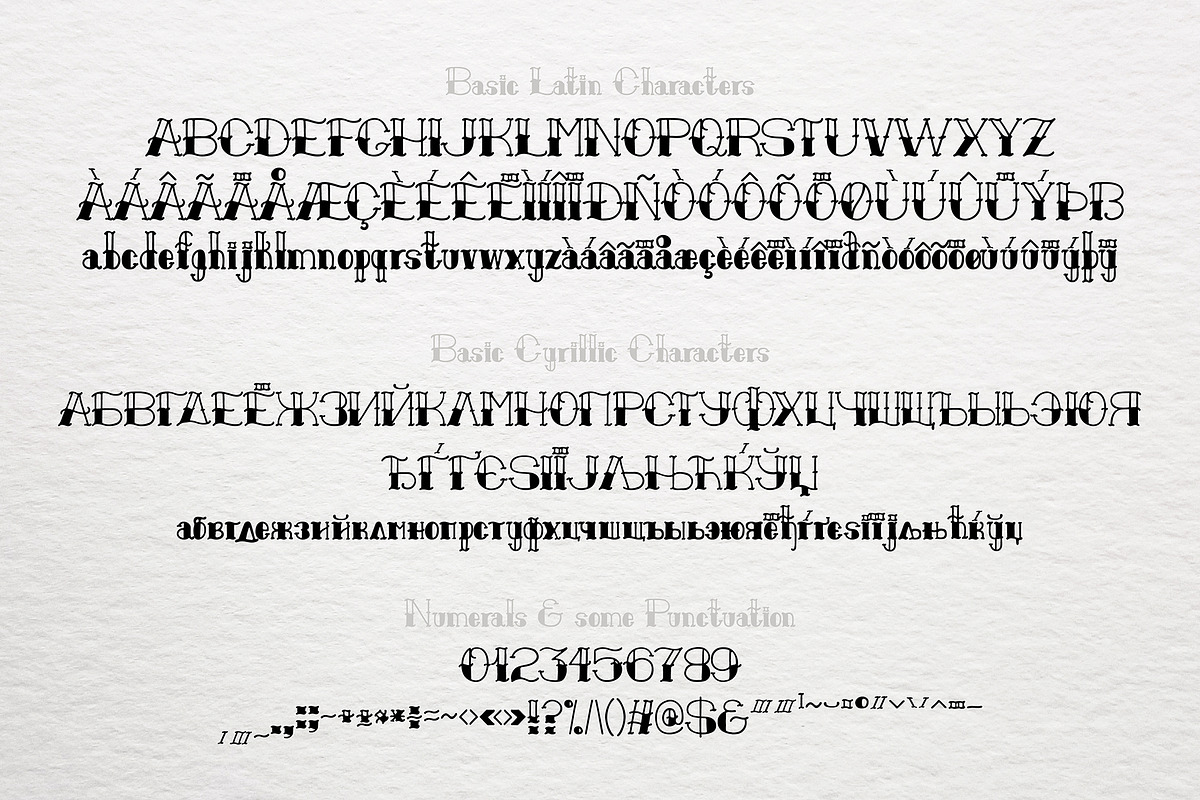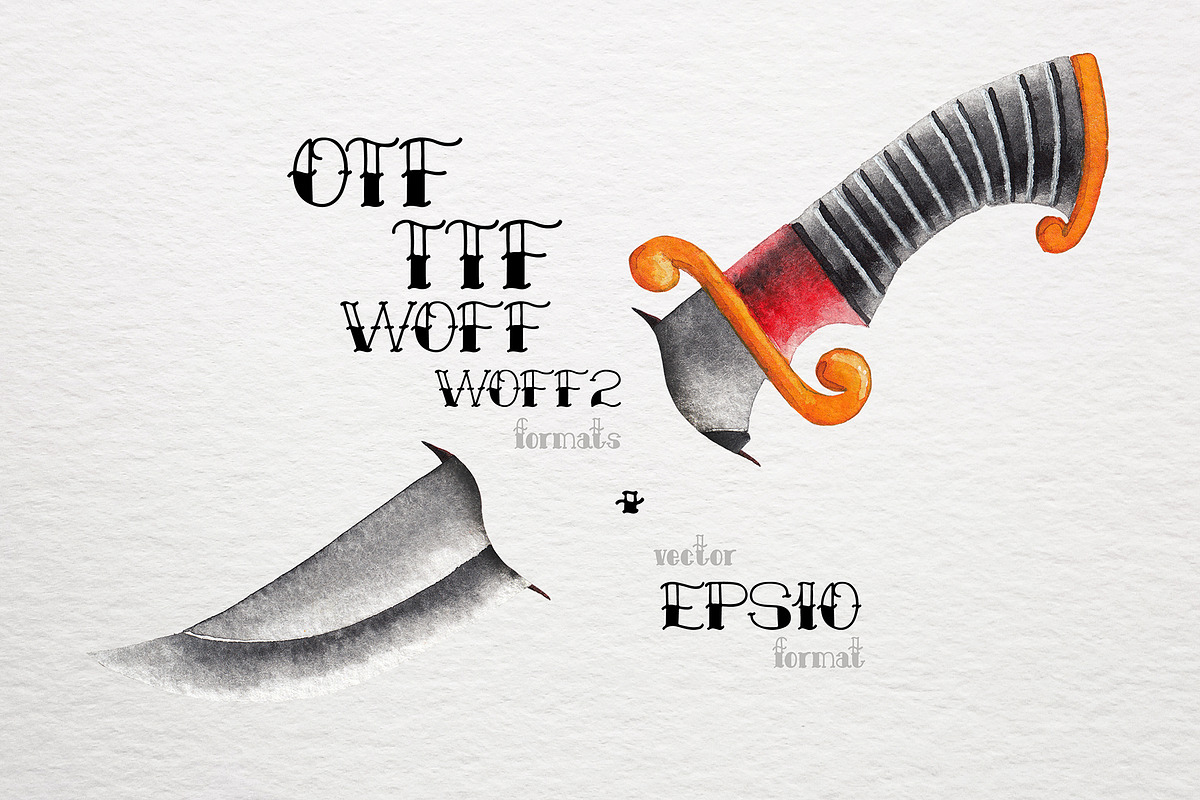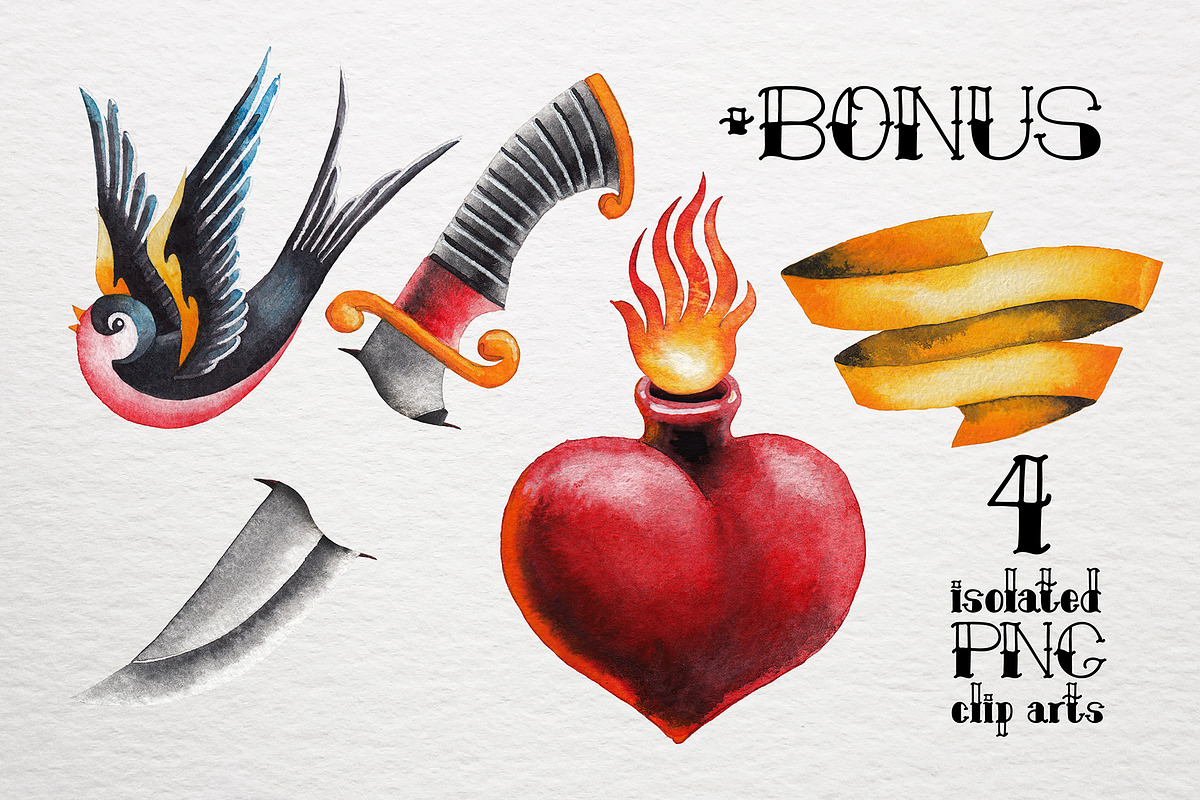
Old school font
OLD SCHOOL is a simple hand-written font in traditional tattoo style.
support of BASIC LATIN&CYRILLIC characters (please, check your text in the box above to see if your language is available).
UPPERCASE&LOWERCASE characters
Old school font by Ekaterina Glazkova fits naturally into Branding, posters, packaging, typography.